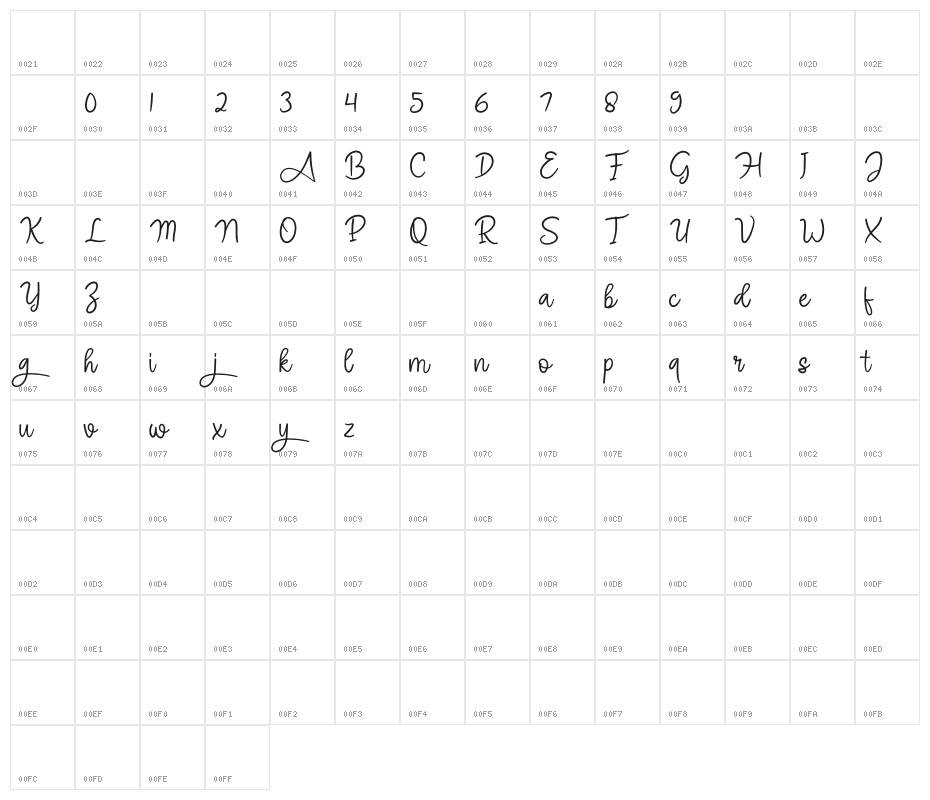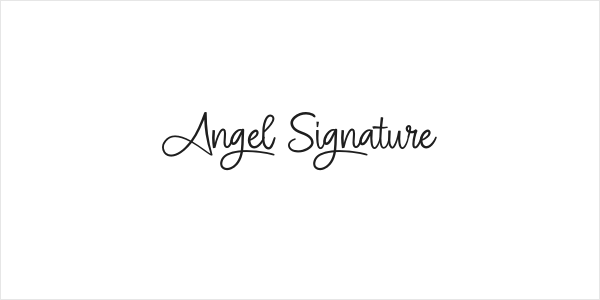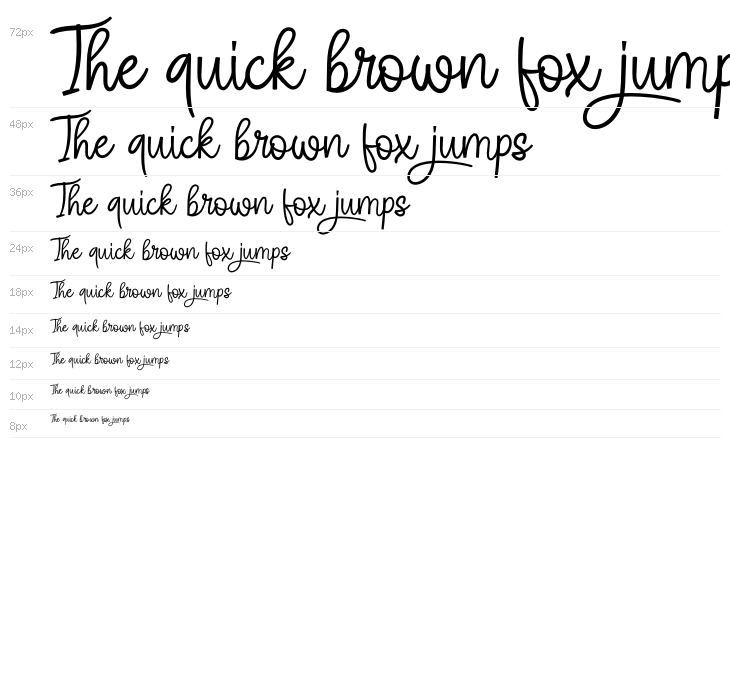
Angel Signature Font
| Estilo geral | Elegant, Handwritten |
| Caso de uso | Logos, Invitations, Personal Branding |
| Projetos propostos | Ideal for wedding invitations, personal branding, greeting cards, and elegant stationery. |